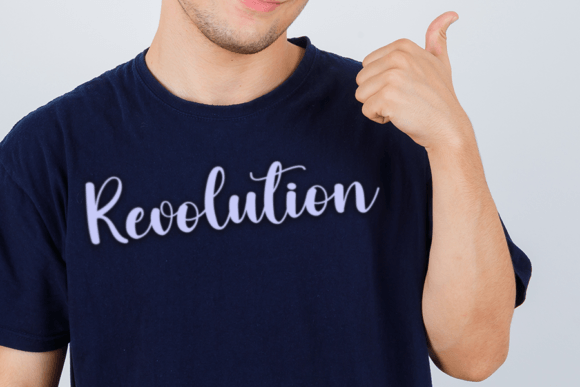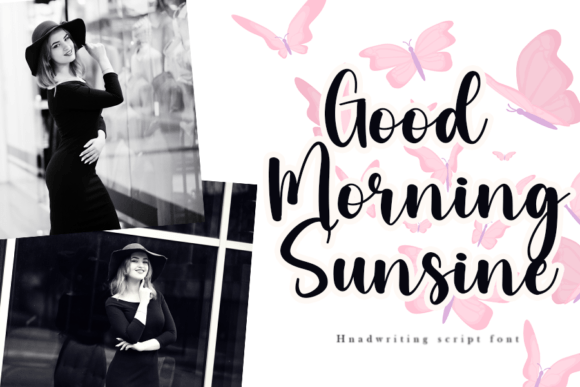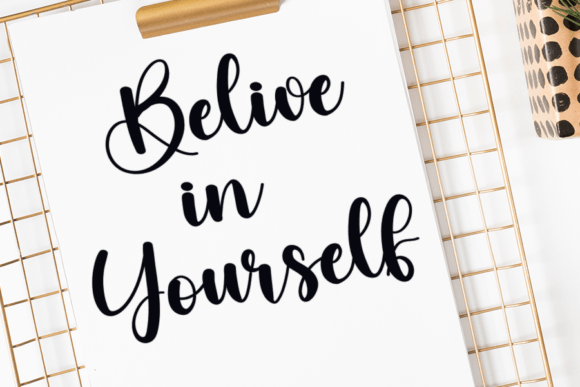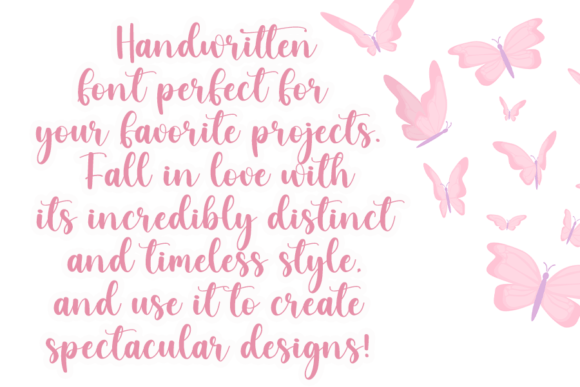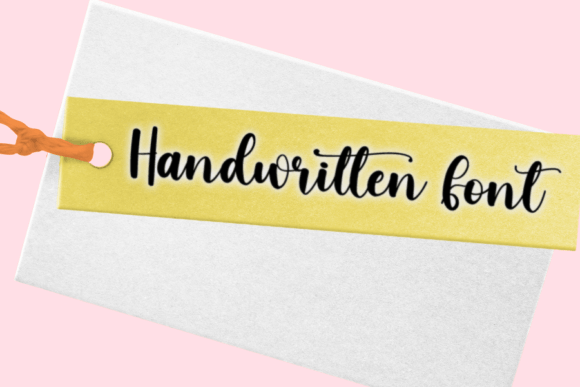
Transforming Your Designs with the Butterfly Font
As designers, we’ve all been there – staring at a blank canvas, searching for the perfect font to bring our vision to life. It’s that moment of serendipity when everything clicks into place, and the right font makes all the difference. For many, it’s the Butterfly Font that provides that elusive spark.
The Butterfly Font is a masterfully crafted, handwritten font that exudes a sense of timeless elegance and sophistication. Its contemporary atmosphere makes it an ideal choice for a wide range of designs, from elegant invitations to modern branding materials. What sets it apart is its impeccable form, inspired by the classic calligraphy of yesteryear.
Whether you’re a seasoned designer or just starting out, the Butterfly Font is a valuable addition to your toolkit. Its versatility and unique charm make it a go-to choice for creatives looking to add a touch of personality to their work.
Key Features of Butterfly Font
- Unique Characteristics: The Butterfly Font features a unique blend of elegance and whimsy, with intricate details and subtle flourishes that set it apart from other fonts.
Designer Review: Butterfly Font
Overall, I’d say the Butterfly Font is a charming addition to any design project. ✨ It’s playful, whimsical, and sure to bring a touch of elegance to your work.
- ✨ Unique and intricate designs make it perfect for adding visual interest to a design.
- ✨ The font is highly customizable, allowing for a wide range of color and size options.
- ✨ Great for use in creative fields such as branding, advertising, and editorial design.
- ⚠️ May not be the best choice for body text, as it can be quite ornate and difficult to read.
- ⚠️ Some characters may not be available in certain language sets, limiting its use in global designs.
- ⚠️ Not suitable for use in situations where clear, concise communication is paramount.
Overall, the Butterfly Font is a beautiful addition to any design project, but it’s essential to use it judiciously and in the right context. With its unique charm and versatility, it’s sure to add a touch of magic to your designs.
Practical Application Guide for Butterfly Font
The Butterfly Font is ideal for creative projects, such as wedding invitations, birthday cards, and social media graphics. It can also be used for branding and logo design, particularly for companies or individuals in the creative or fashion industries.
To get the most out of the Butterfly Font, experiment with different font sizes, colors, and combinations with other fonts. Use it to create a playful, whimsical look or a sophisticated, elegant design. Remember to pair the font with high-quality images or graphics to enhance the overall visual appeal of your project.